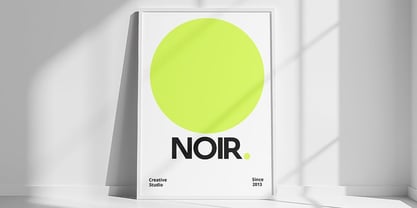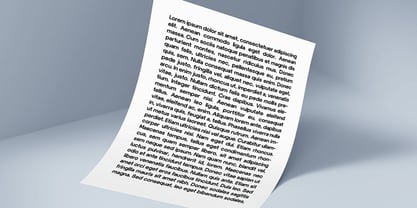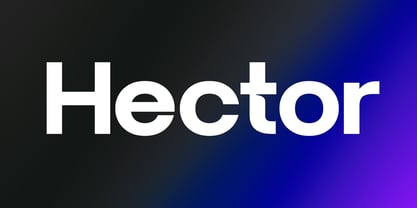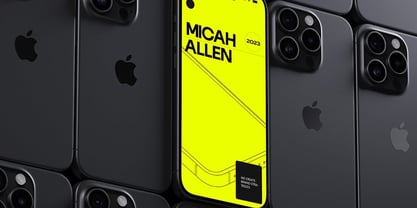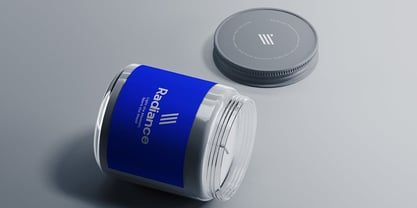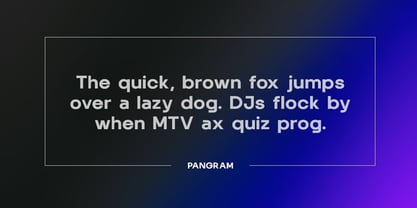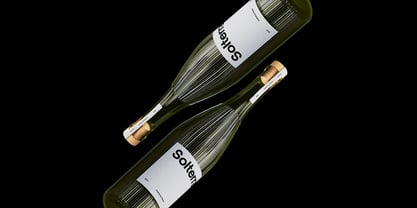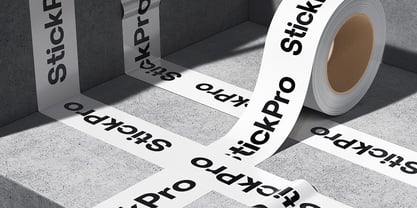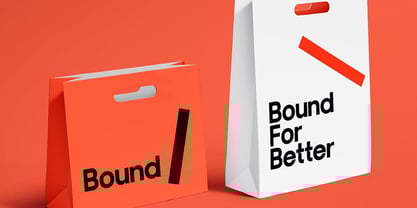
Hector Display
by Webhance
The Hector Display Font Family was designed by Ancy George and published by Webhance. Hector Display contains 1 styles.
Hector Sans is a clean and versatile sans-serif typeface, designed with simplicity and elegance in mind. Currently available in a single weight, with more styles on the way, it’s perfect for any design project that requires a professional and modern touch. Hector Sans offers exceptional readability and a refined aesthetic that will bring sophistication to your work.
Hector Display